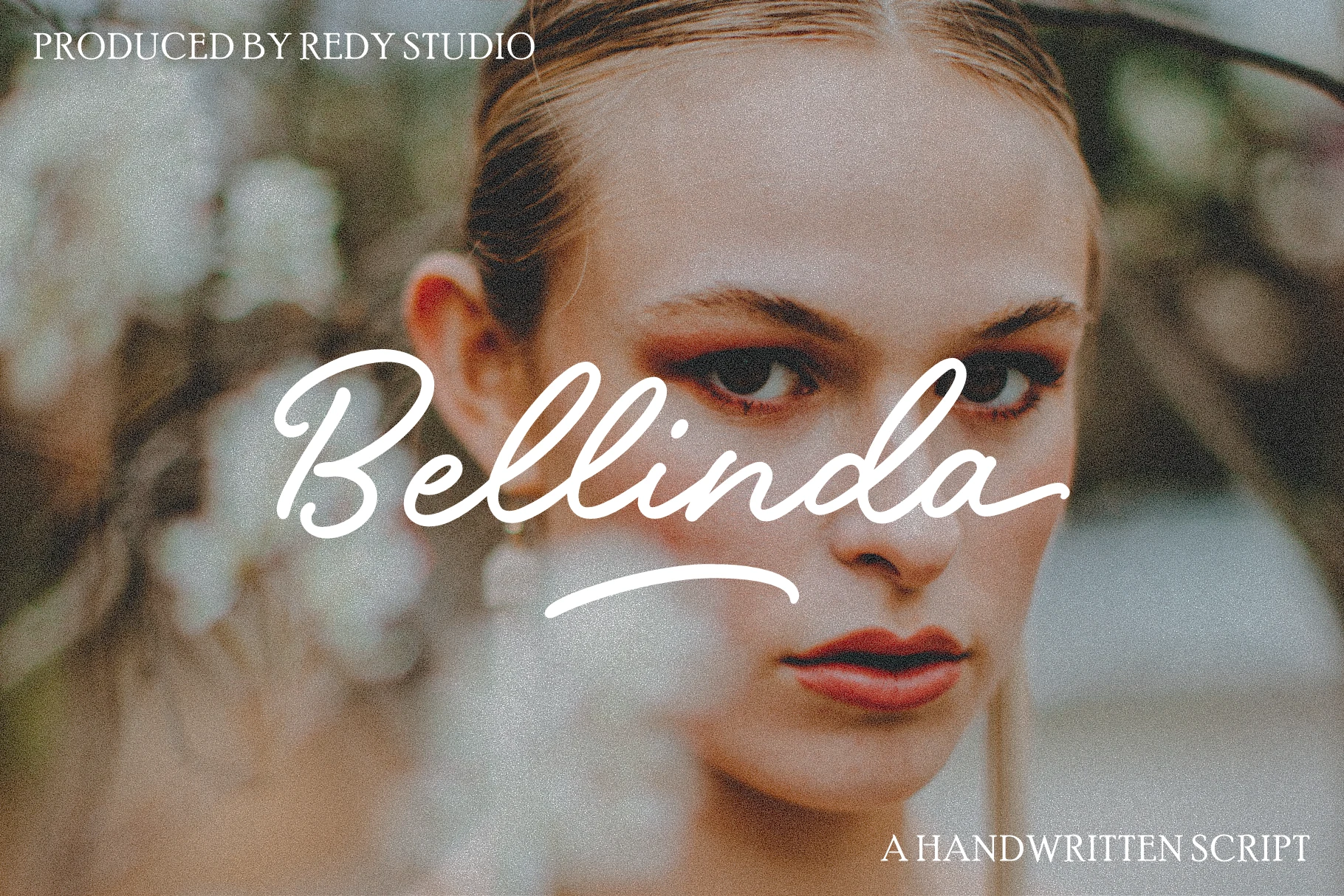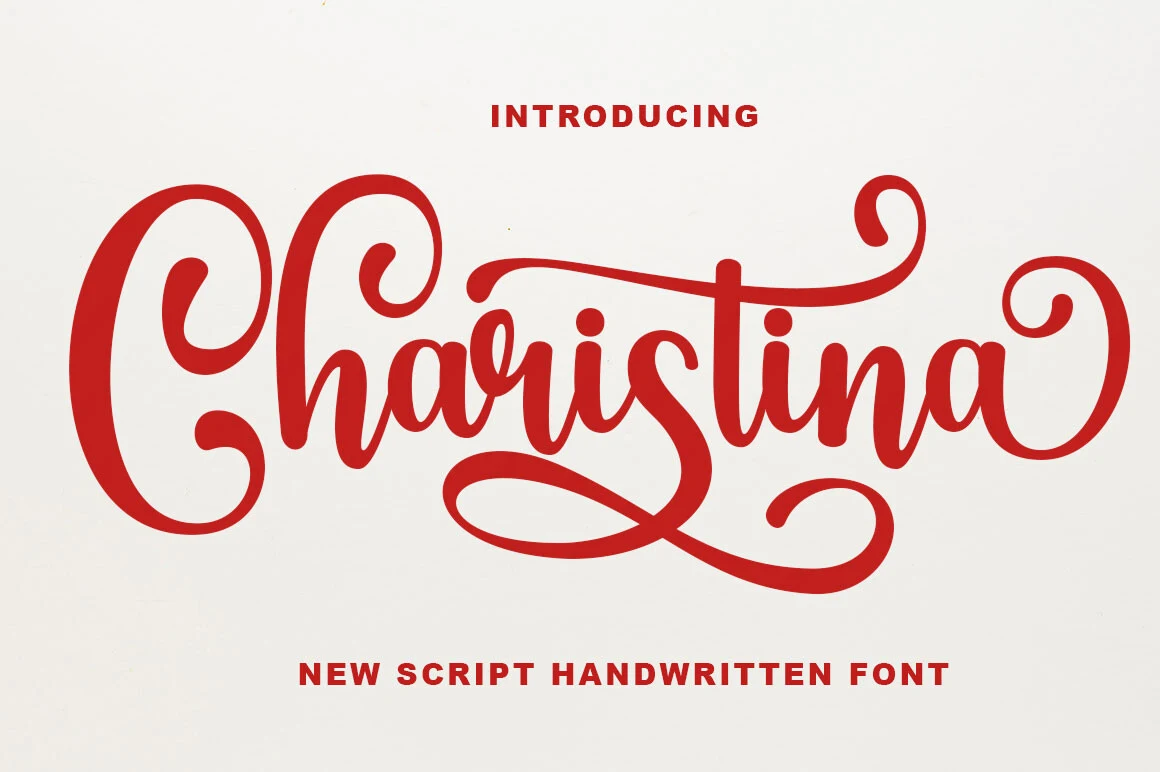
19 Best Modern Calligraphy Fonts for 2026
This collection spans restrained monoline scripts, textured brush lettering, romantic connected forms, and high-contrast designs loaded with swashes. These Modern Calligraphy Fonts serve distinct roles across logos, invitations, packaging, social graphics, and display headlines, with readability changing sharply according to scale and ornament.
Modern Calligraphy Fonts
These Modern Calligraphy Fonts share low-contrast monoline construction, stable connections, and controlled slants, giving them a cleaner, steadier appearance than the more heavily ornamented groups.
Dairy Day Font
Dairy Day Font displayed in a flowing connected script with a slanted axis, monolinear strokes, and extended beginning and ending swashes.
Dairy Day Font uses a wide, right-leaning monoline structure with connected lettering, a stable baseline, ligatures, and extended beginning and ending swashes. Among Modern Calligraphy Fonts, it is especially suited to logos and invitations, although its loops need display sizing.
Bellinda – Modern Calligraphy Font
Bellinda – Modern Calligraphy Font is a connected, right-leaning script with monolinear strokes and a final-letter swash.
Bellinda – Modern Calligraphy Font uses a delicate right-leaning monoline axis and finishes with a swash underline. Its consistent stroke gives names and quotes a clean handwritten flow, while the thin connected line needs sufficient size and contrast to remain visible.
Valencia Font
Valencia Font is a flowing connected script with a pronounced rightward slant, monolinear strokes, and sweeping entry and exit strokes.
Valencia Font keeps the construction regular and monoline, with stable connections plus extended entry and exit strokes. That restraint makes it practical for greeting cards, invitations, and wedding marks; however, its thin flowing connectors still favor display use over small text.
Decorative Romantic Calligraphy
Connected romantic scripts in this group use mixed weights, rounded terminals, hearts, and expressive flourishes. They feel more decorative than the restrained monoline category and need generous display sizing.
Sweetie Font
Sweetie Font is a bold connected script with elaborate swashes and heart-shaped details.
Sweetie Font stands out through high-contrast connected strokes, an oversized swashed capital S, and heart-shaped details on letters such as i and j. The bold gestures make wedding branding and headlines memorable, but the decorative forms require large display treatment.
Masterline Calligraphy Font
Masterline Calligraphy Font displaying connected, slanted calligraphic letterforms with high stroke contrast and flowing swashes.
For packaging or invitations that need a hand-lettered signature effect, Masterline Calligraphy Font brings pronounced contrast, connected cursive, flowing swashes, and a noticeably variable baseline. Its irregular movement adds character, while the detailed joins and flourishes become difficult to scan at small sizes.
Charistina Font
Charistina Font is a connected decorative script with high stroke contrast, rounded terminals, and sweeping swashes.
Charistina Font softens connected calligraphy with rounded terminals and prominent flourishes. Its mixed stroke weight creates a more decorative result than a monoline script, making it effective for logos and wedding headlines but unsuitable for extended text or small captions.
Fairy Wing Font
Fairy Wing Font with connected cursive letters, high stroke contrast, and flowing organic shapes.
Fairy Wing Font builds its identity around connected organic shapes, variable line thickness, and a whimsical high-contrast rhythm. These Modern Calligraphy Fonts qualities work well in expressive branding and packaging, though its stylized joins remain clearest in large headlines.
Angel Font
Angel Font is a connected calligraphic script with high stroke contrast and flowing ornamental swashes.
Angel Font has a bold connected structure, high contrast, rounded terminals, and substantial ornamental swashes. Its heavier presence gives logos and invitations a firm silhouette, while dense decoration limits its usefulness in small captions or supporting copy.
Quincy Font
Quincy Font displayed in flowing connected script with high stroke contrast, rounded curves, and heart-shaped dots.
Quincy Font takes a steadier upright stance than strongly slanted scripts, pairing connected curves and high contrast with heart motifs above letters. It suits decorative headings and social graphics, but those details make dense text and very small applications harder to read.
Flower Spring Font
Flower Spring Font is a connected calligraphy script with high stroke contrast, looping ascenders and descenders, and decorative swashes.
How to Choose the Right Font
Choose monoline options when stable connections and lower contrast matter, then move to brush or duo designs when texture or supporting text is useful. For maximum drama, select a high-contrast script with swashes; for better readability, increase size, reduce ornament, and keep every calligraphic choice to display roles rather than paragraphs.